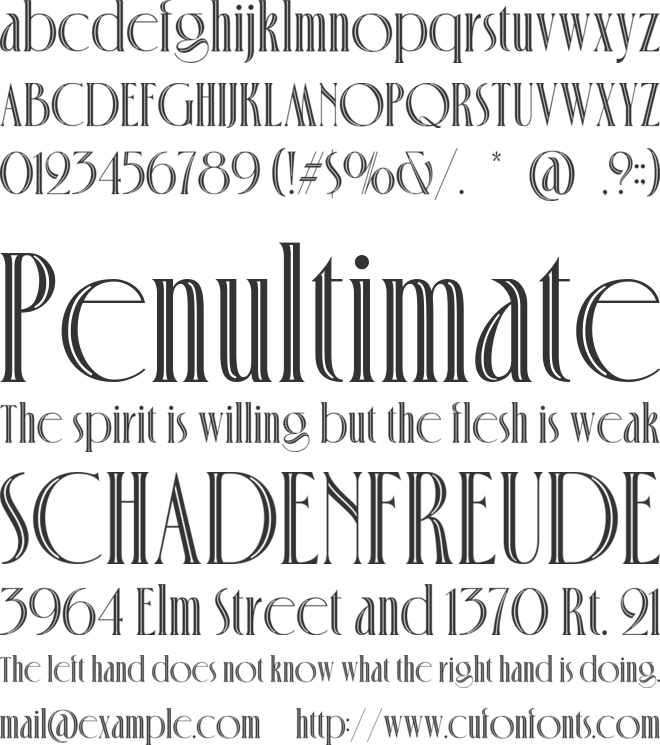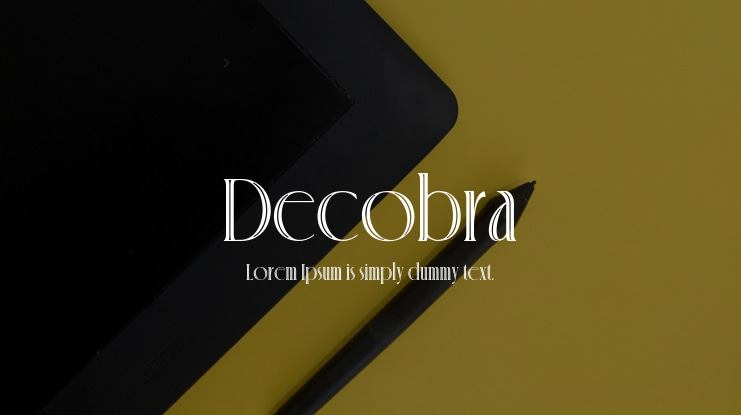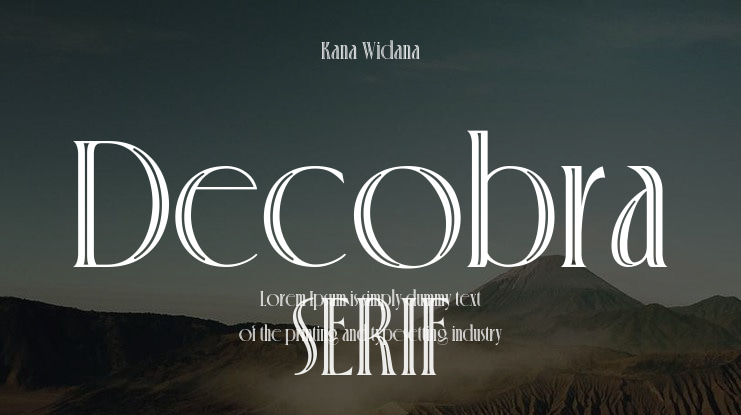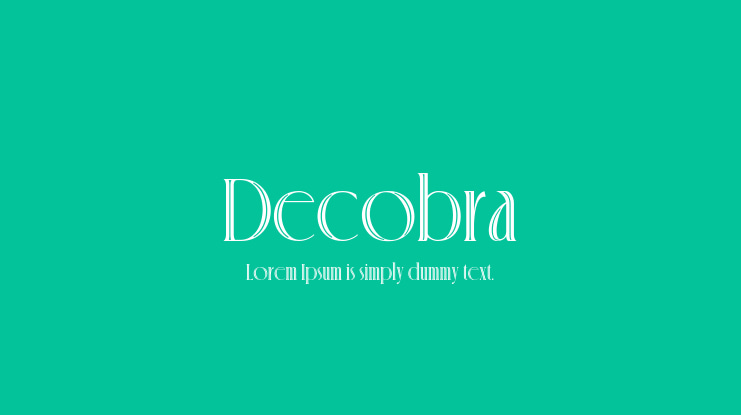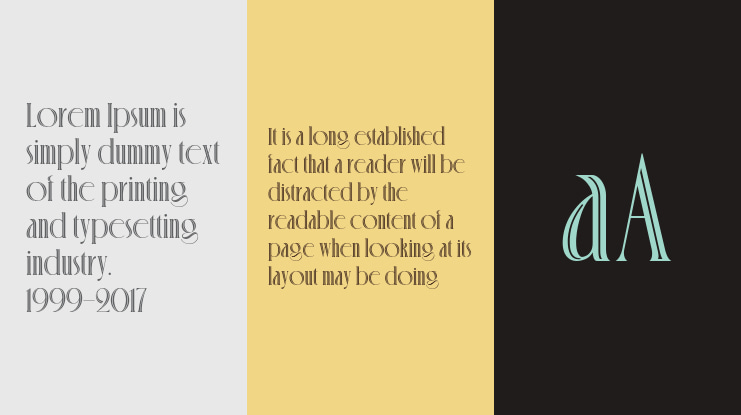
Decobra Font
Decobra Art Deco Typeface
Step into the golden era of design with Decobra, a unique Art Deco typeface that exudes elegance and modern sophistication. It perfectly balances dynamic thick and thin strokes. Decobra’s charm lies in its striking two-line body, making it an extraordinary choice for projects that are vintage-inspired yet contemporary.